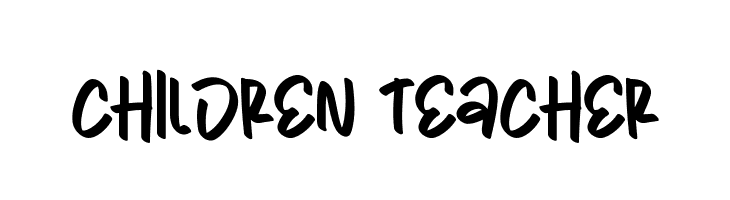
A playful, handwritten font with bold, rounded strokes and a dynamic slant.
A playful, handwritten font with a whimsical and childlike charm.
A playful, hand-drawn font with a bold, childlike style.
A playful, hand-drawn font with a whimsical and dynamic style.